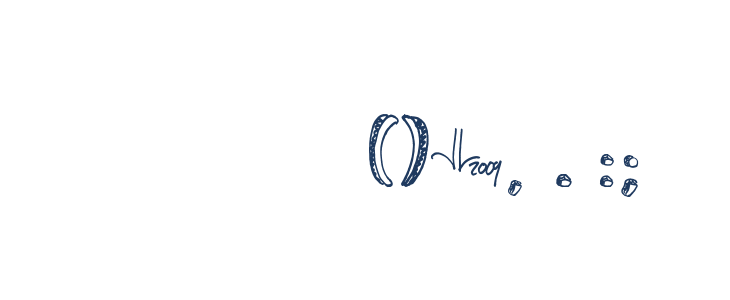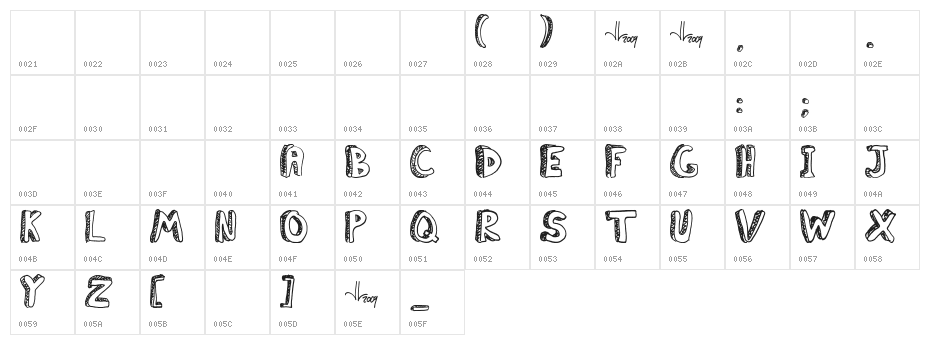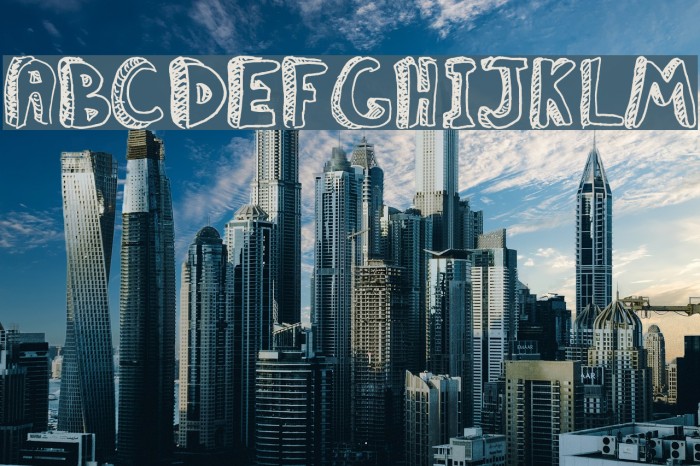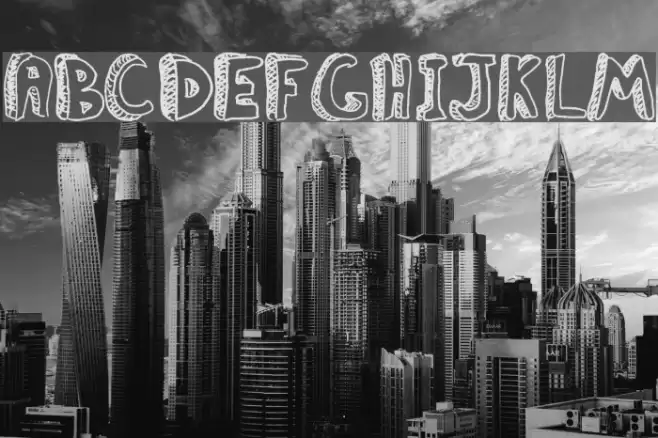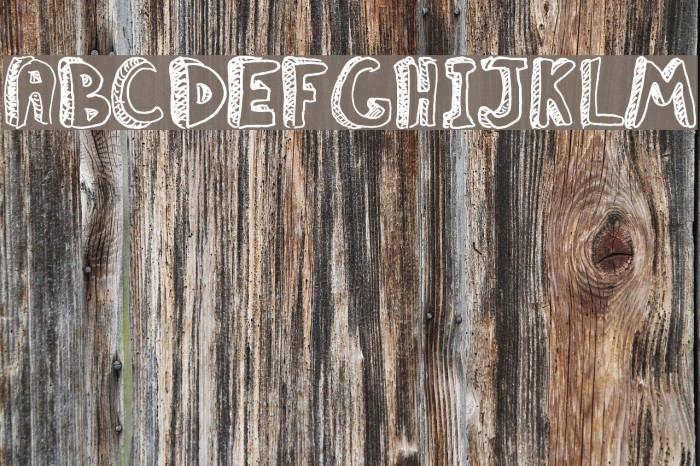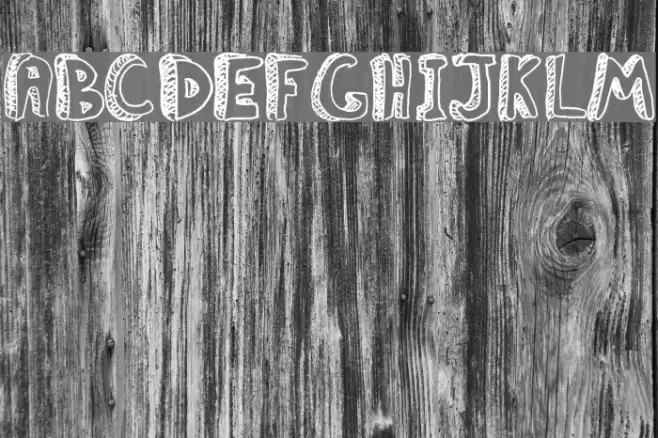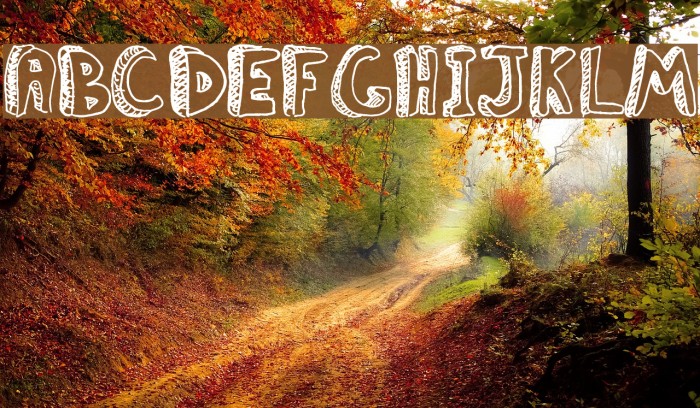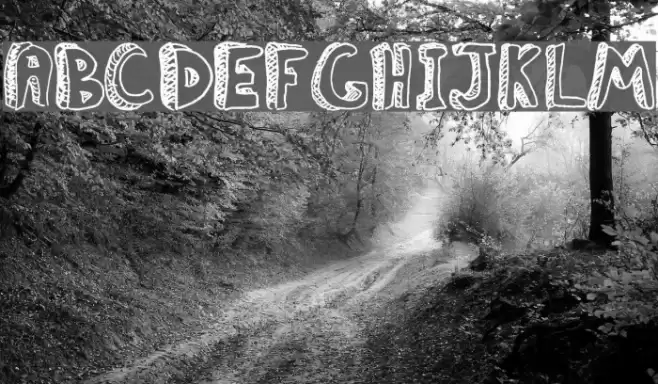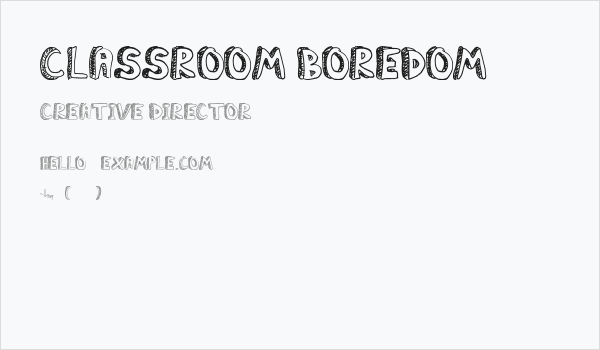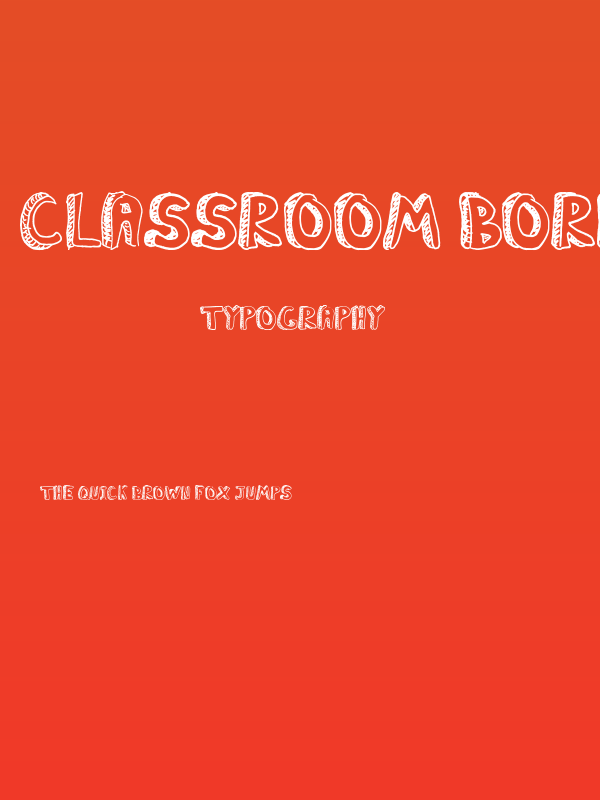
Classroom Boredom Font
Classroom Boredom Description
This font features a playful and whimsical style, characterized by its bold, hand-drawn appearance. Each letter is uniquely crafted with a doodle-like texture, giving it a lively and informal feel. The strokes are uneven, adding to the casual and artistic vibe. The font is highly decorative, with a three-dimensional effect that makes it stand out. It is perfect for projects that require a fun and engaging look, such as children's books, comic strips, or creative posters. The font's distinctive style makes it unsuitable for formal documents but ideal for artistic and expressive designs.
| Proposed Projects | Children's books, comic strips, creative posters, informal invitations. |